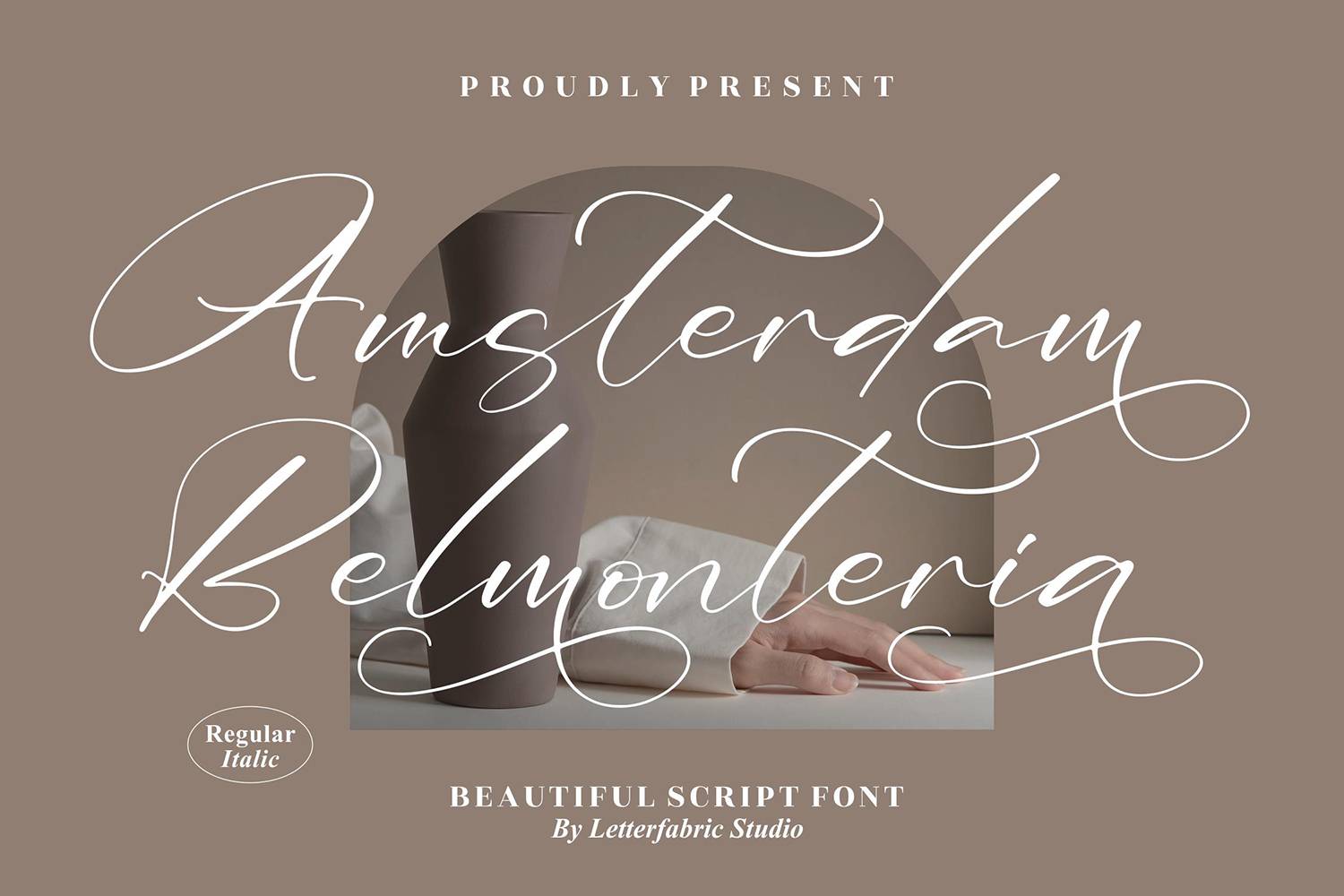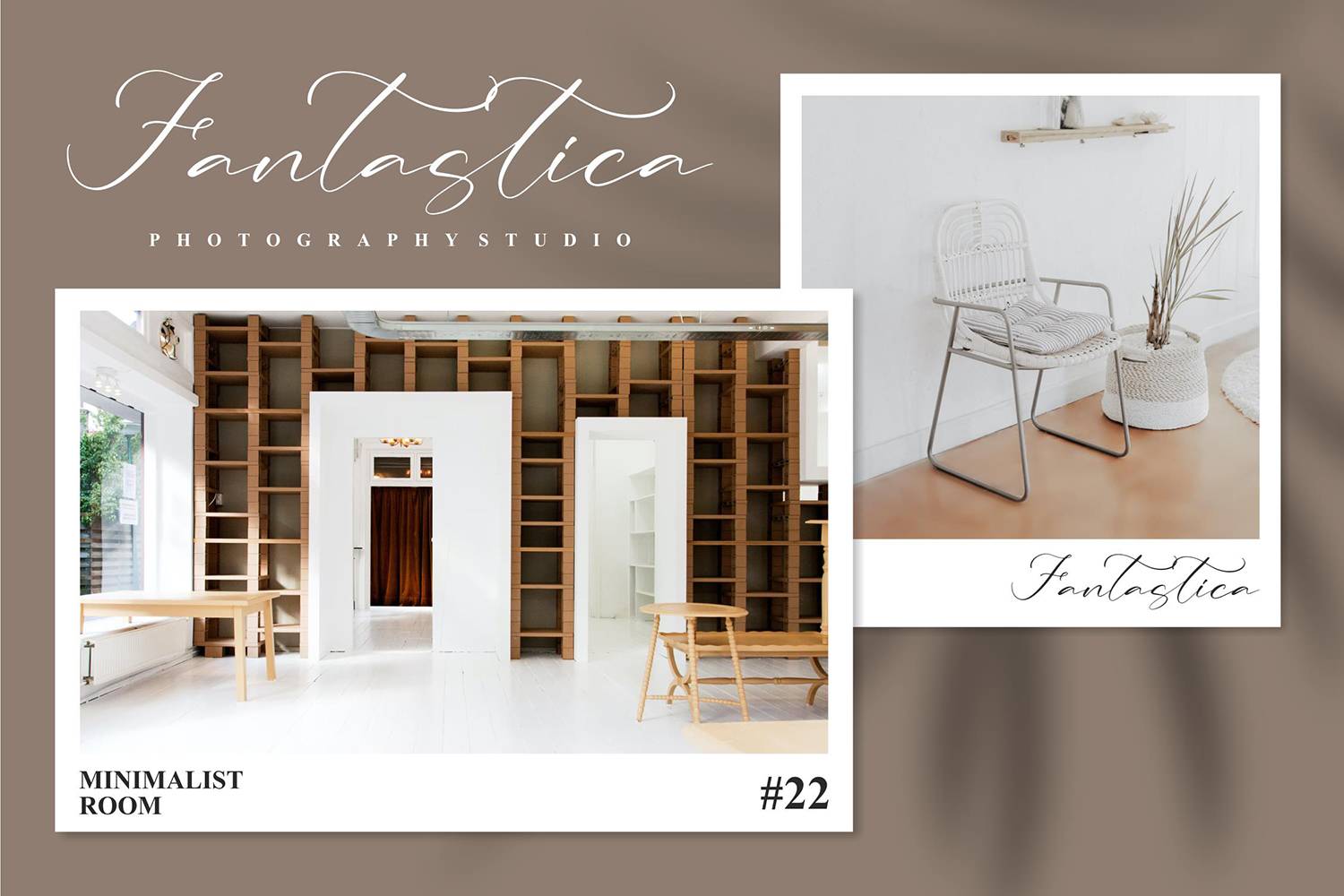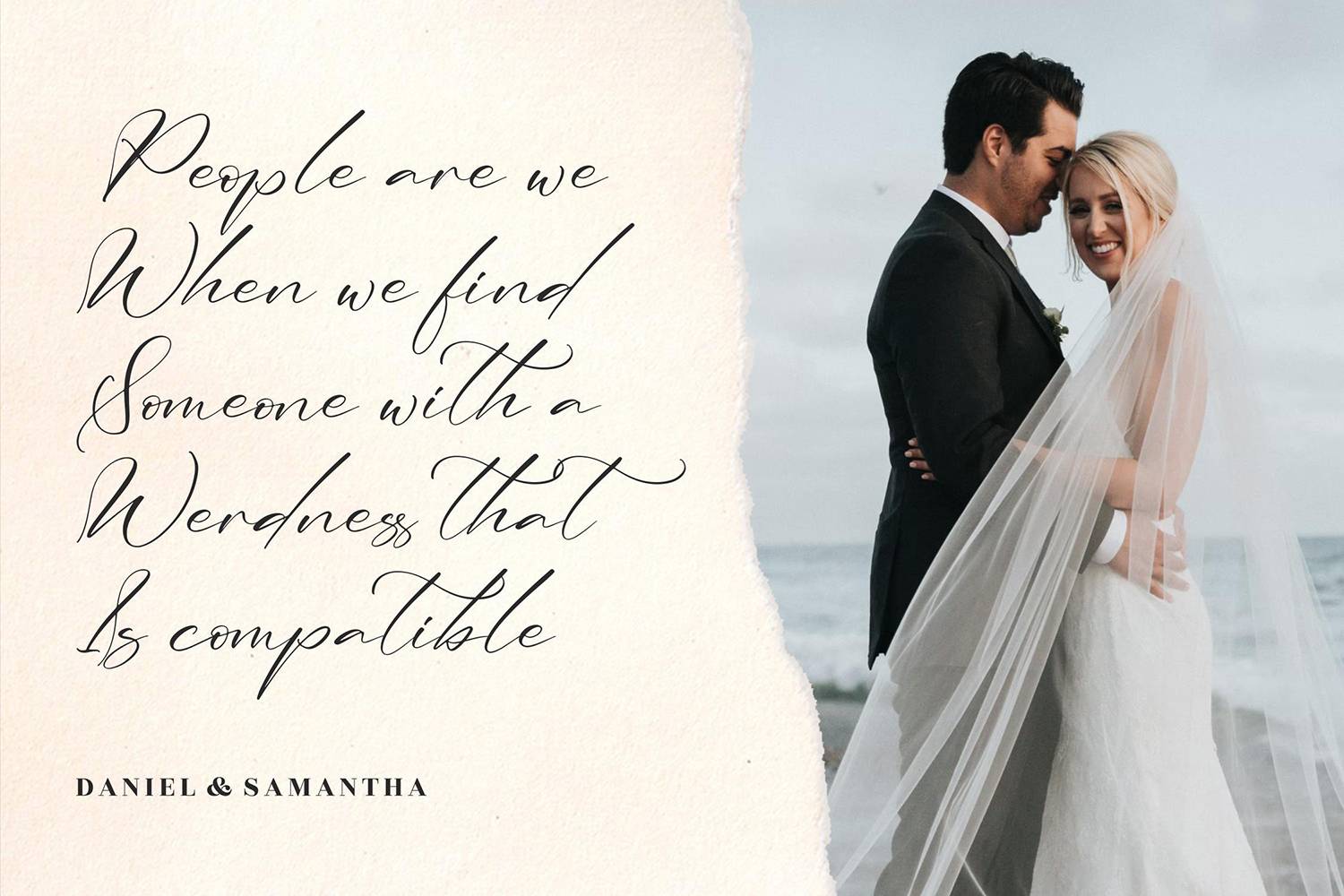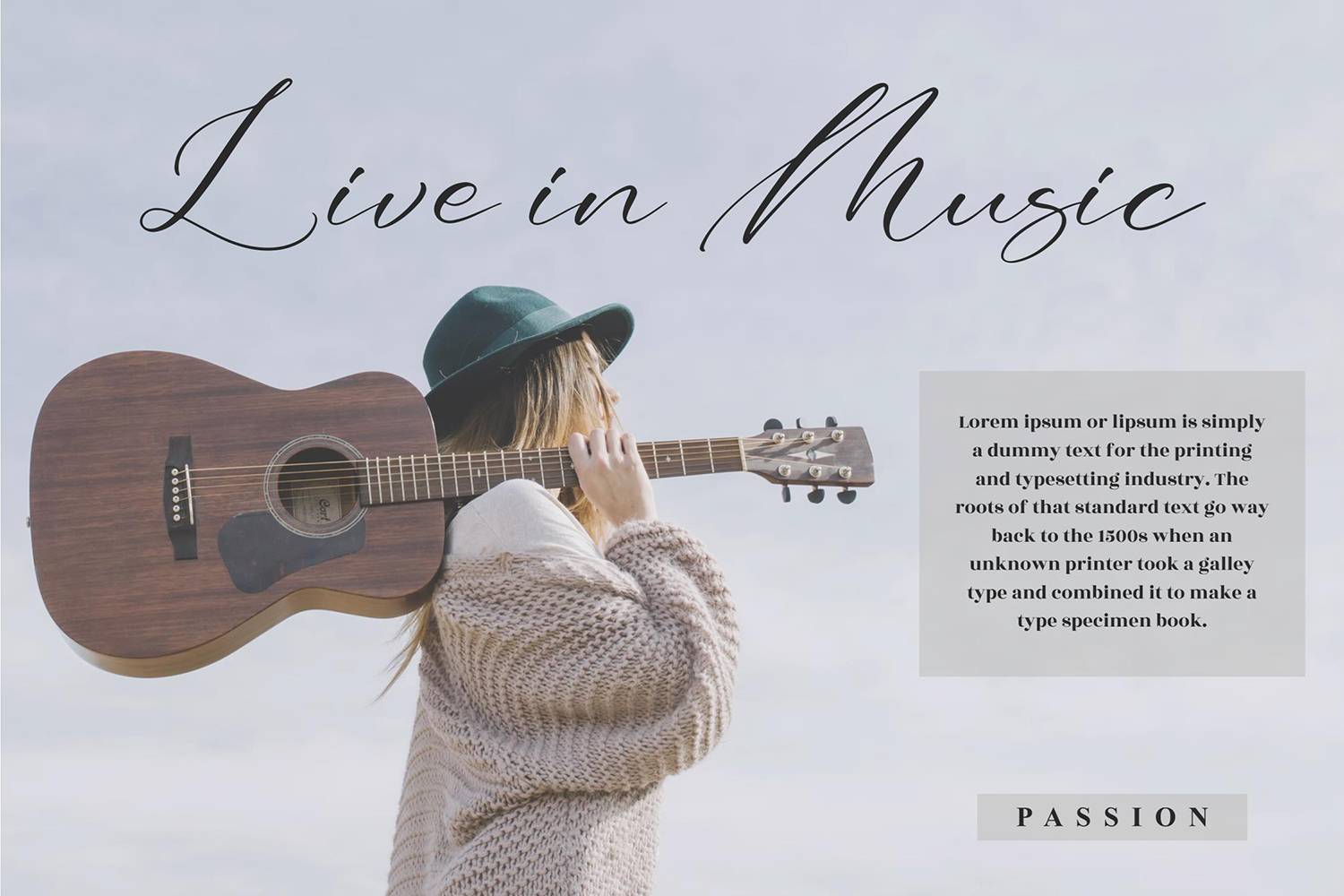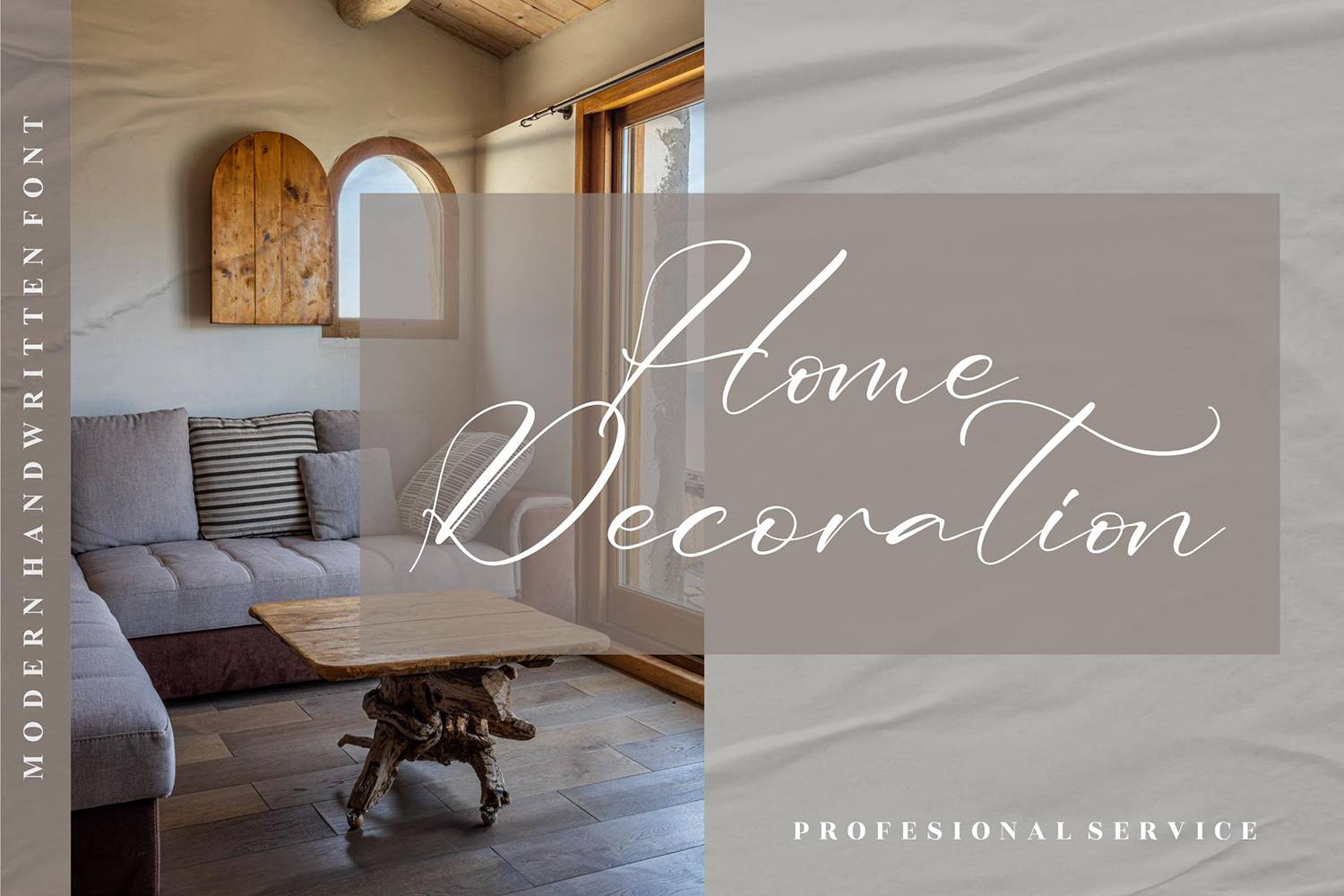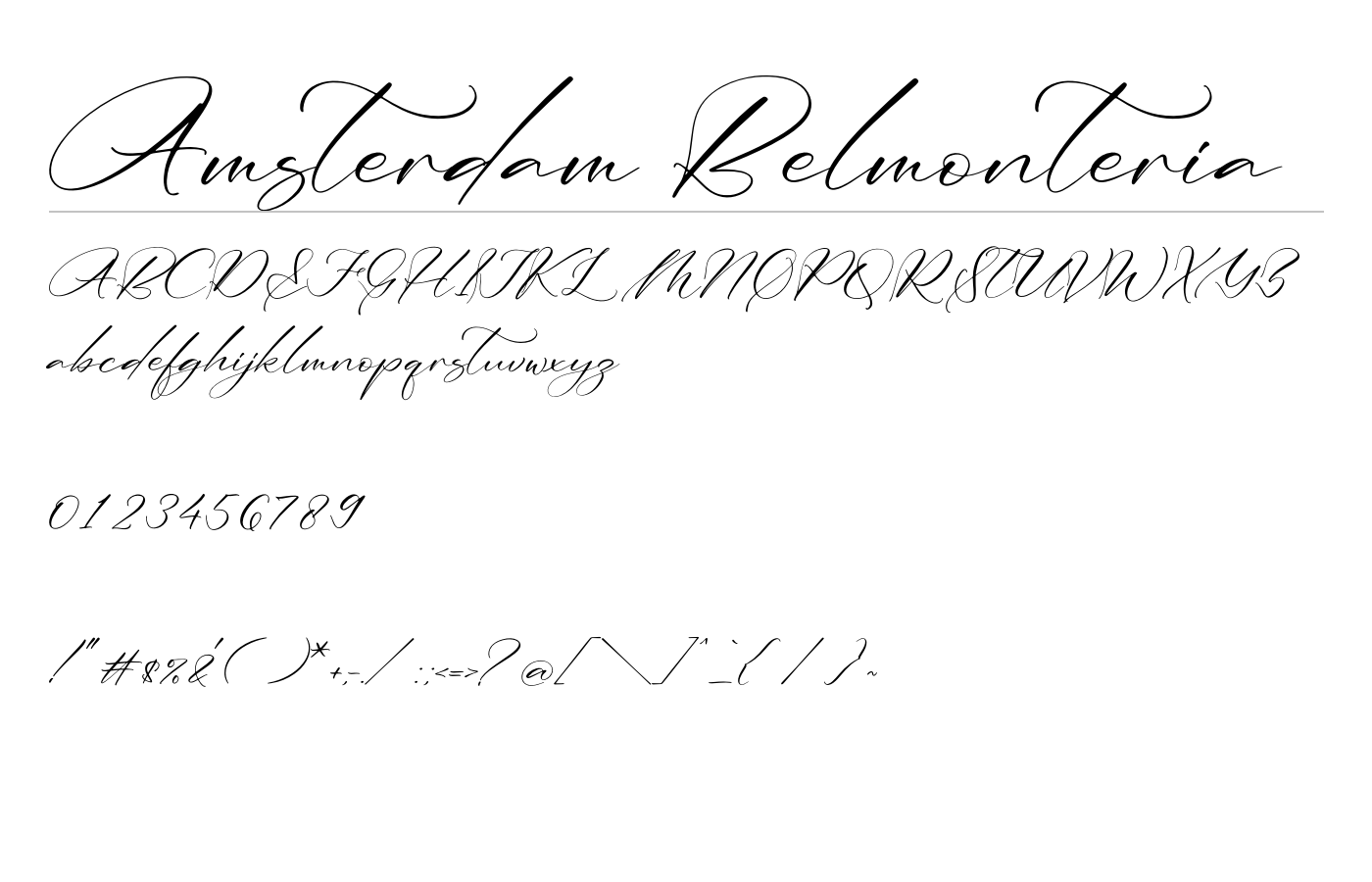
Amsterdam Belmonteria is an elegant, delicate script font featuring graceful, flowing strokes with high contrast between fine lines and thicker, expressive curves. Its refined calligraphic style, with sweeping flourishes and a natural handwritten feel, makes it ideal for luxury branding, wedding invitations, and sophisticated editorial designs that seek a timeless, romantic touch. This font works best in large sizes or headings where its intricate details can shine and add a touch of classic, artistic charm.
Amsterdam Belmonteria Font
About Amsterdam Belmonteria Font